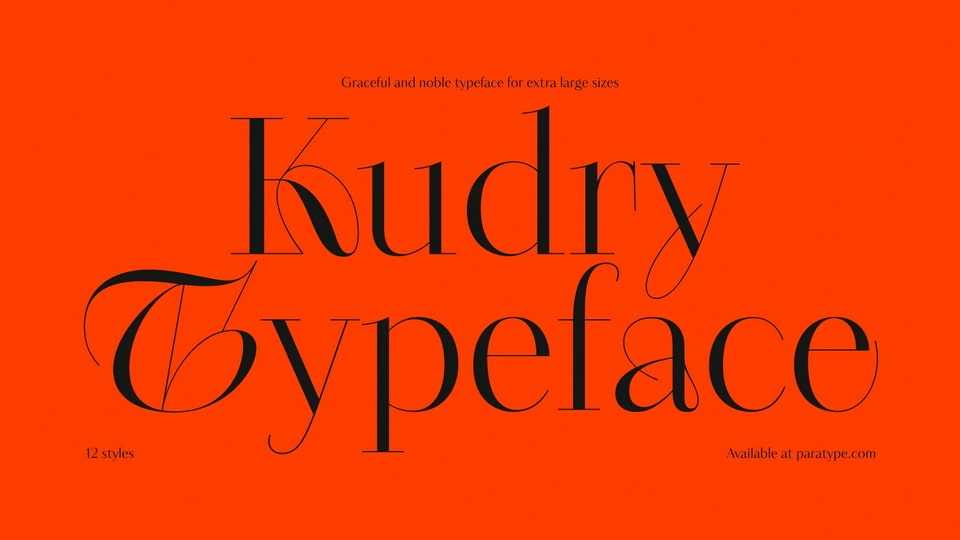
Kudry Weird Headline Font › Fontesk
Download Kudry Weird Headline font, an elegant and noble typeface for use in extra-large sizes. It is suitable for cultural projects and exhibitions, logos, book covers, theater posters, wedding invitations, cosmetics packaging and cakes – in general, for any occasion where a beautiful font is needed.